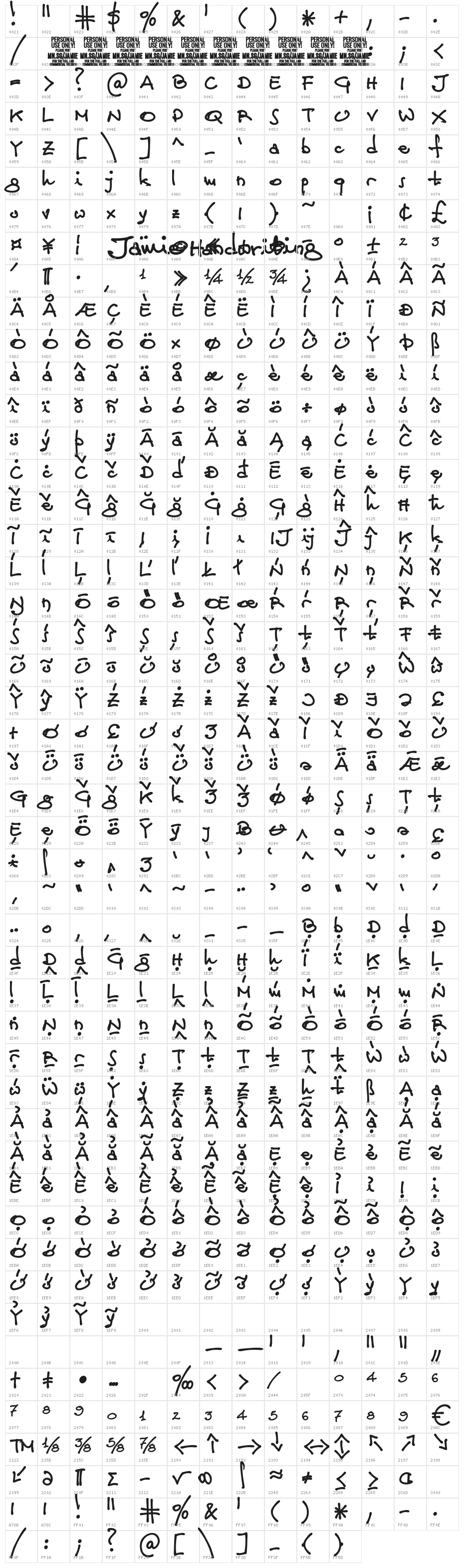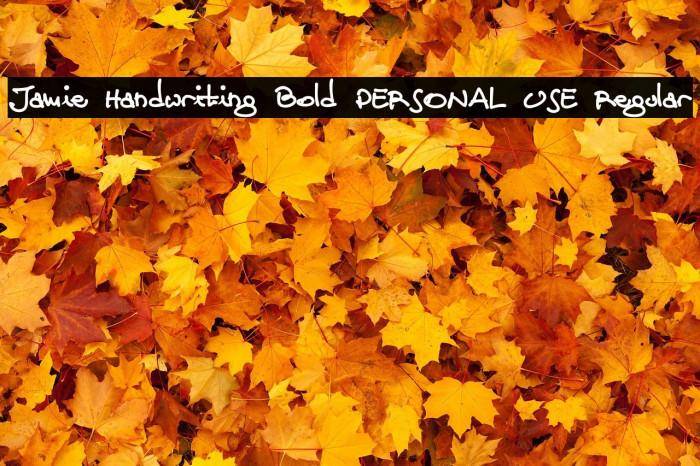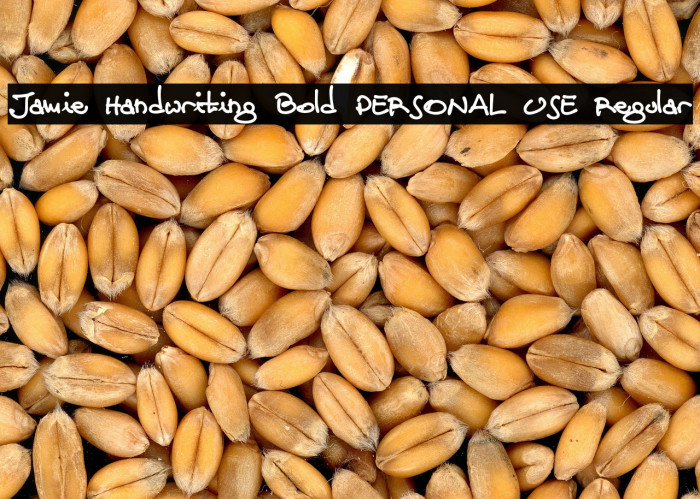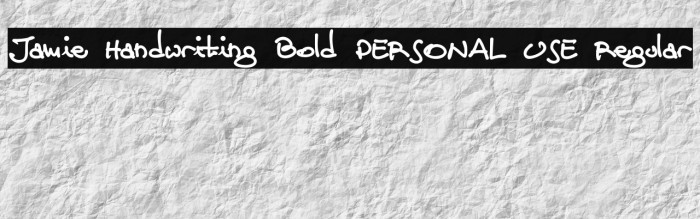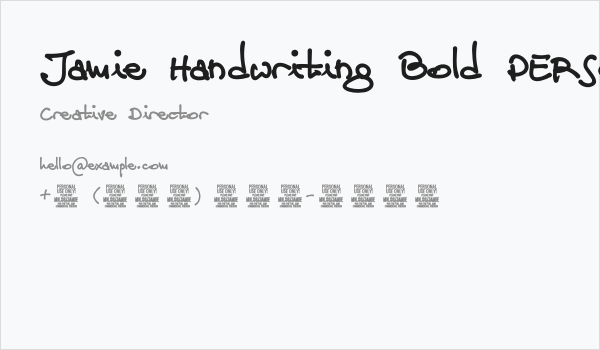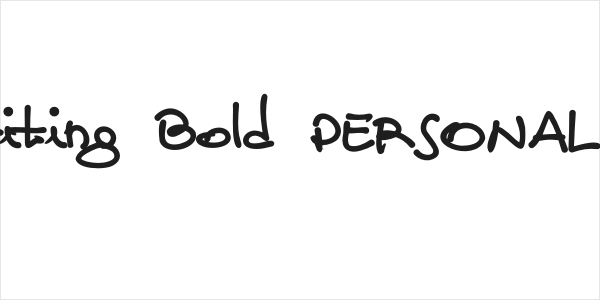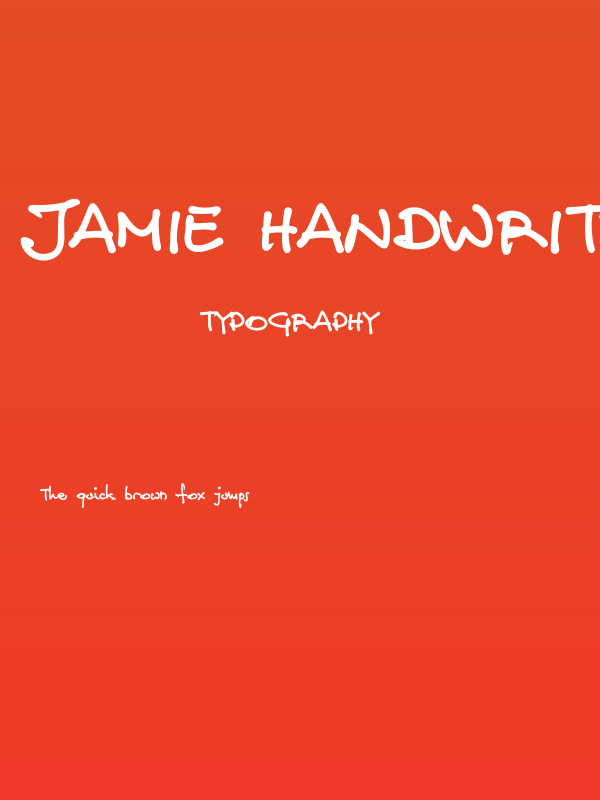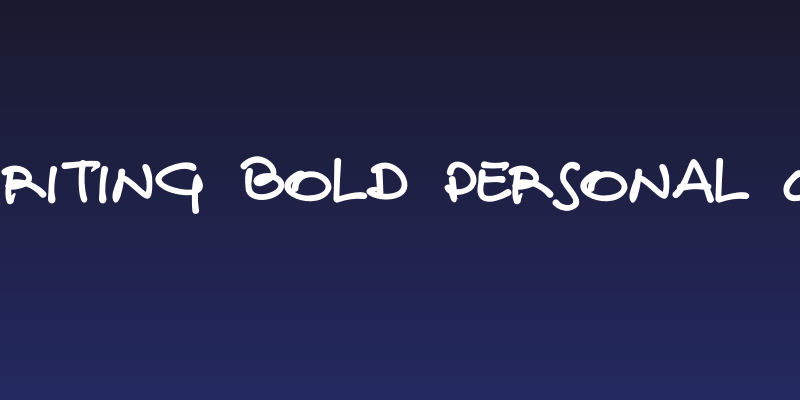
Jamie Handwriting Bold PERSONAL USE Regular Font
Jamie Handwriting Bold PERSONAL USE Regular Description
This font exudes a playful and casual vibe, characterized by its bold, handwritten style. The letters are crafted with a smooth, flowing motion, giving them a natural and organic appearance. The uppercase and lowercase letters maintain a consistent thickness, enhancing readability while preserving a unique, artistic flair. The special characters complement the overall style, adding versatility for creative projects. Its boldness makes it stand out, yet the handwritten touch keeps it approachable and friendly.
Overall StyleCasual, Artistic
Use CaseHeadlines, Creative projects, Personal use
Proposed ProjectsIdeal for personal projects, greeting cards, invitations, and creative branding.